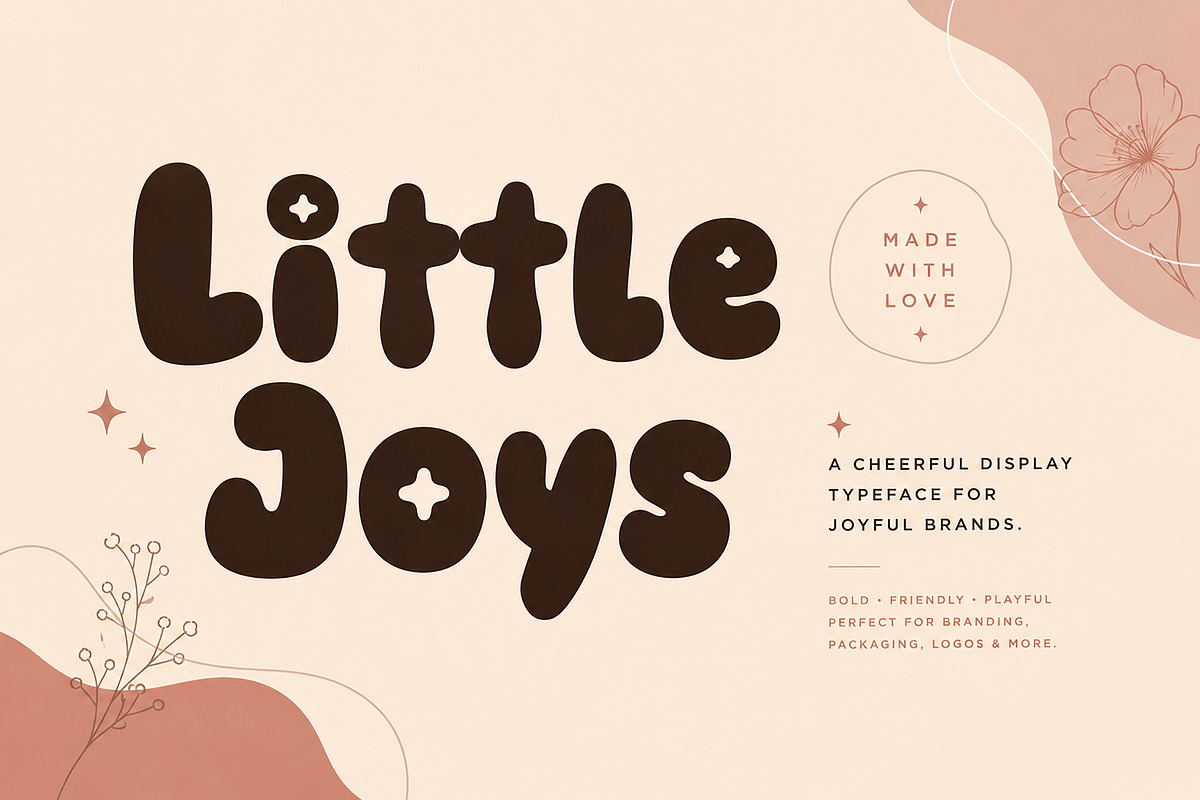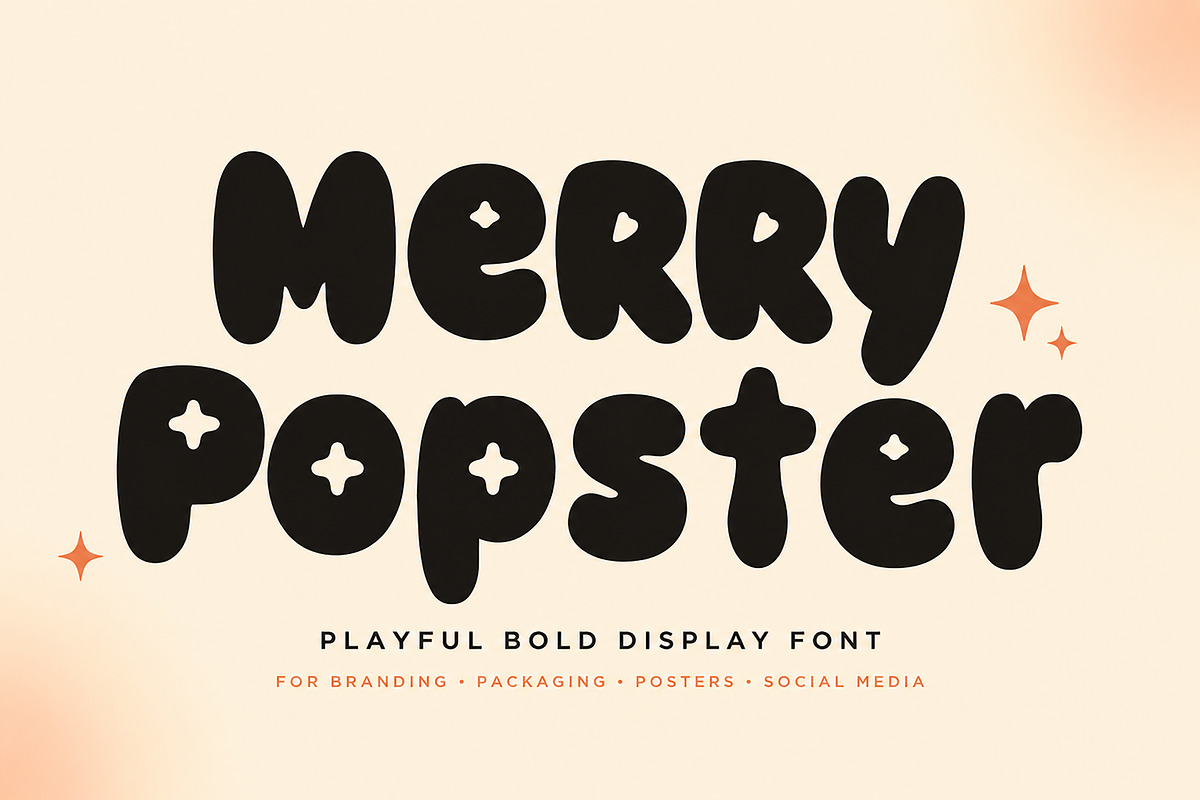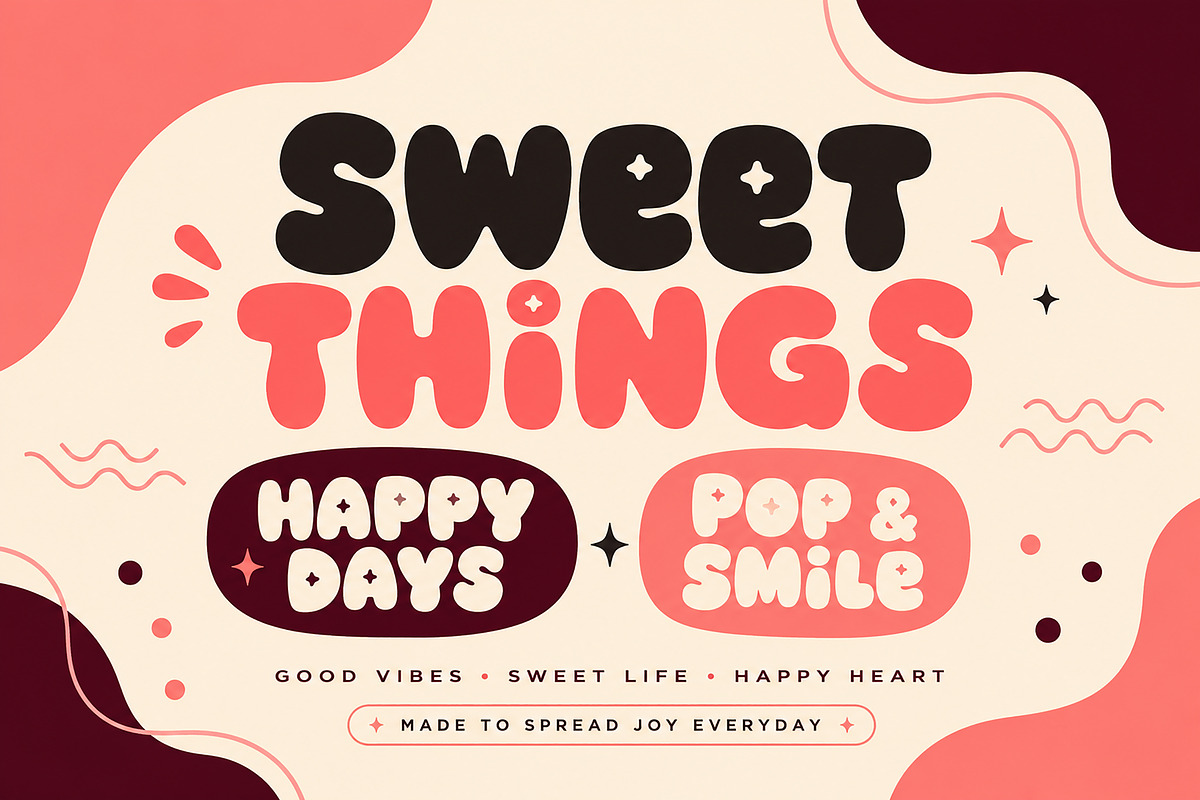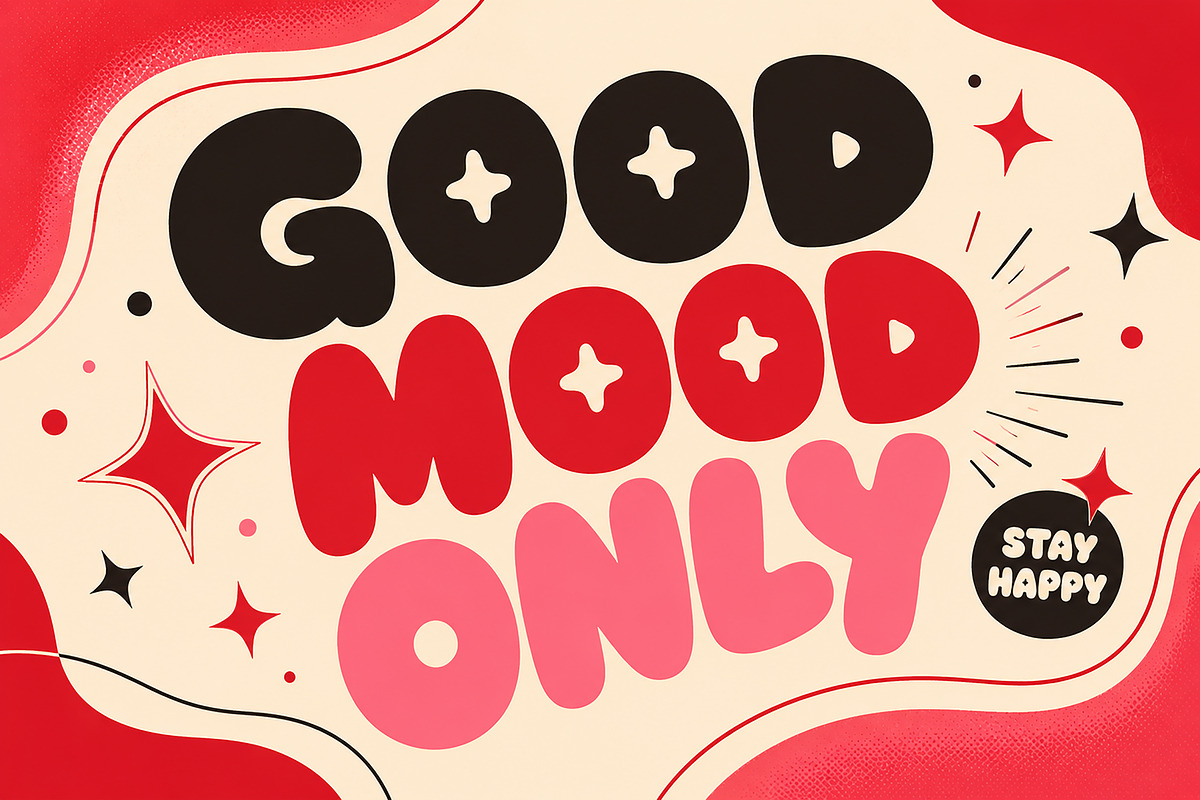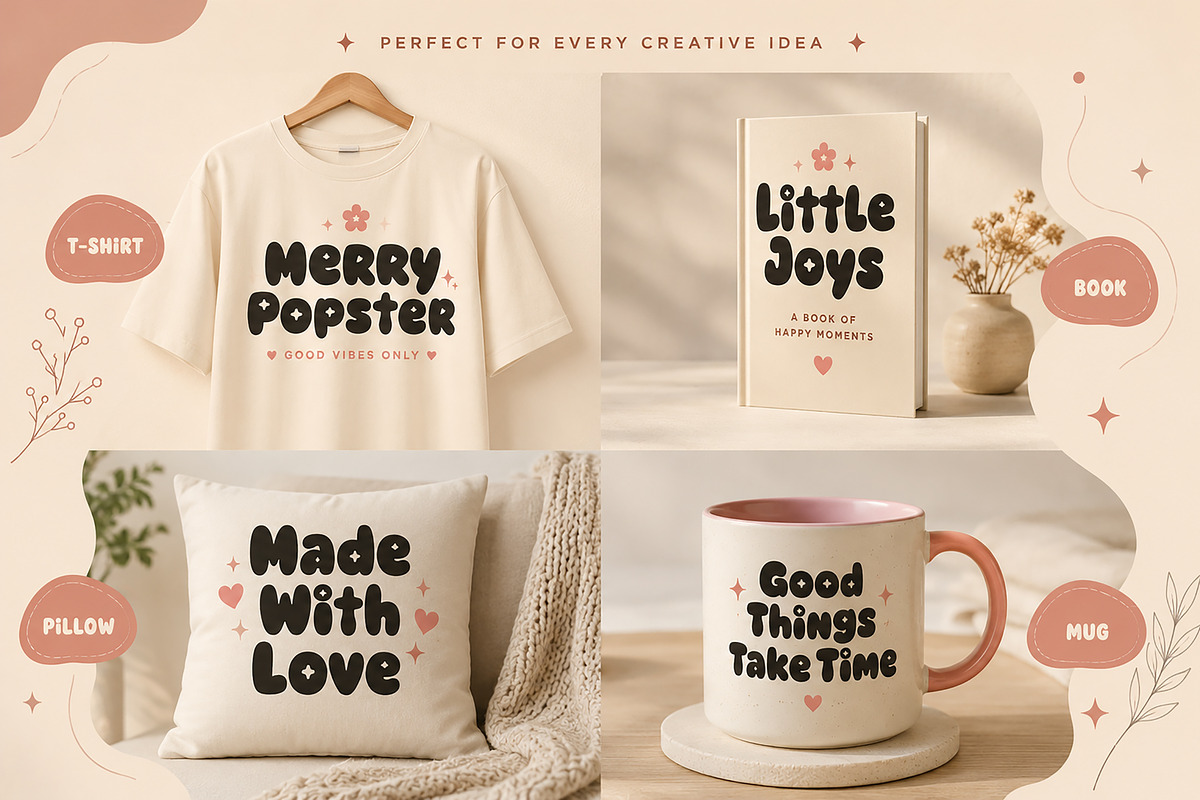
Merry Popster
Merry Popster – Playful Bold Display Font
Merry Popster is a bold, playful display font packed with cheerful personality and soft, rounded character. Its chunky letterforms and charming decorative details create a fun, friendly look while still feeling polished enough for modern branding and professional creative projects.
Designed to make headlines stand out, Merry Popster is a great choice for designers who want typography that feels happy, memorable, and full of character. From colorful packaging and boutique branding to posters, apparel, social media graphics, and playful merchandise, this typeface brings an instant pop of joy to any design.
Its distinctive display style works especially well for kids brands, candy and food packaging, cafés, bakeries, beauty and lifestyle brands, gift shops, T-shirt designs, book covers, stickers, mugs, invitations, and creative advertising.
Logo & Branding
Posters & Headlines
T-Shirt & Apparel Design
Book & Cover Design
Mugs & Merchandise
Stickers & Labels
Kids & Playful Branding
Candy & Food Branding
Café & Bakery Designs
Beauty & Lifestyle Branding
Invitations & Greeting Cards
Creative Advertising
Font Style: Playful Bold Display Font
Add a cheerful, bold personality to your next project with Merry Popster — made for designs that deserve to be noticed.